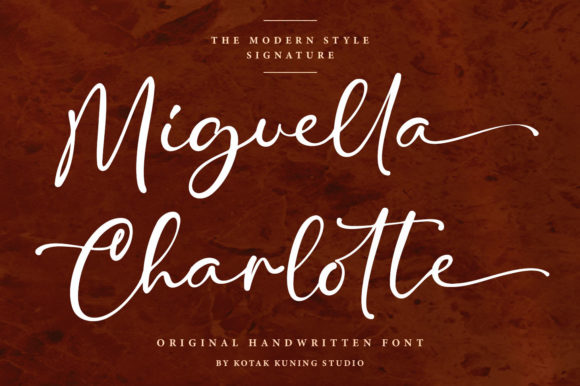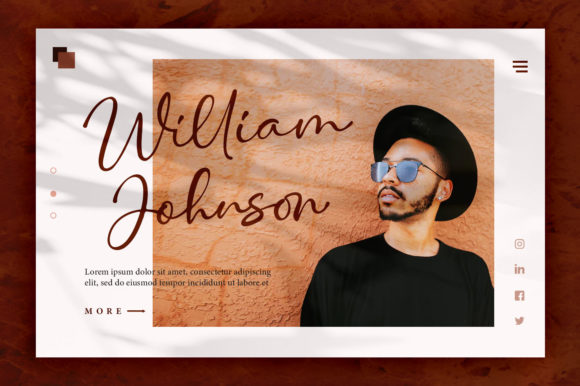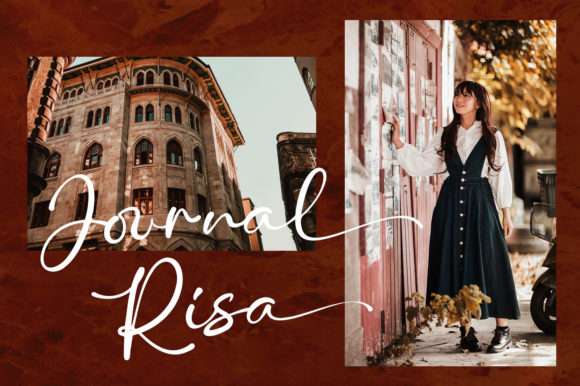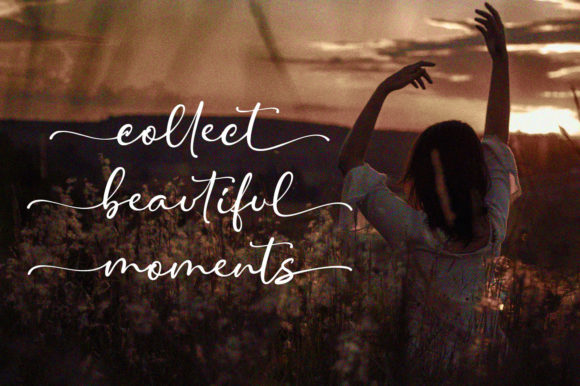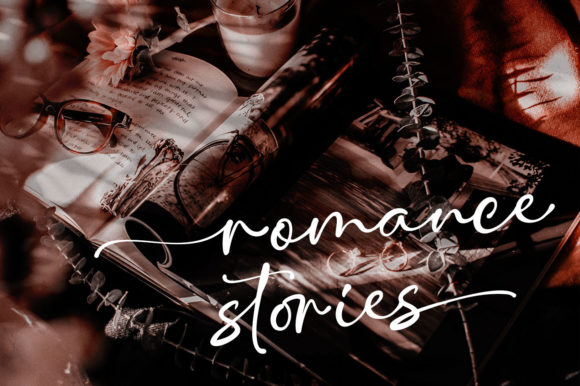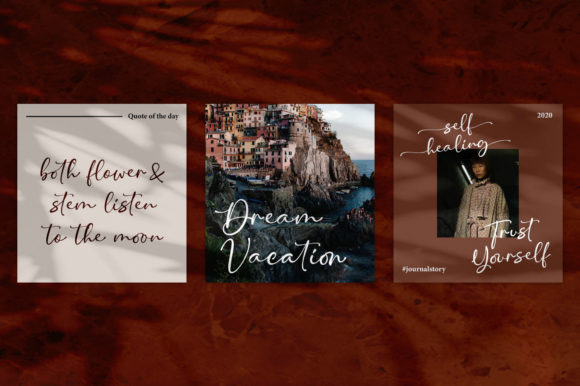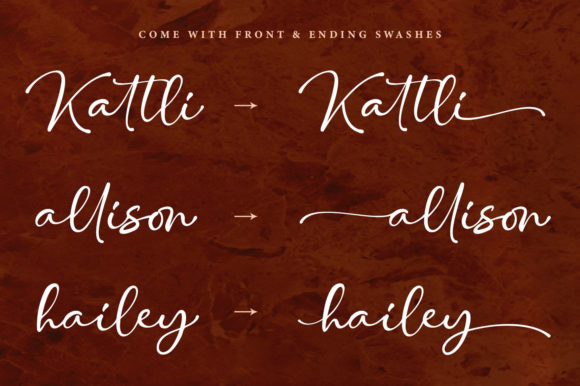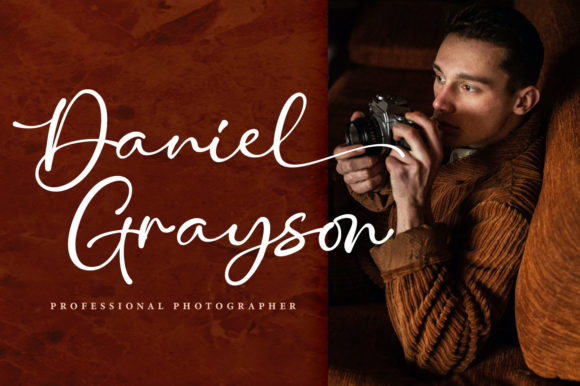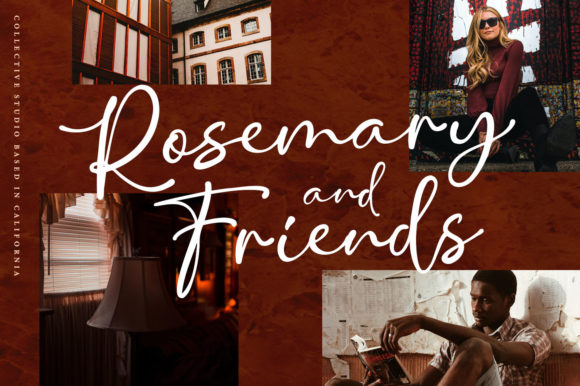
Miguella Charlotte Font
Miguella Charlotte is an elegant and flowing handwritten font. It has beautiful and well balanced characters that are perfect for designs such as: logos, stationery art, quotes, book covers, magazines, branding and much more. Add it to your most unique ideas to make your projects stand out.